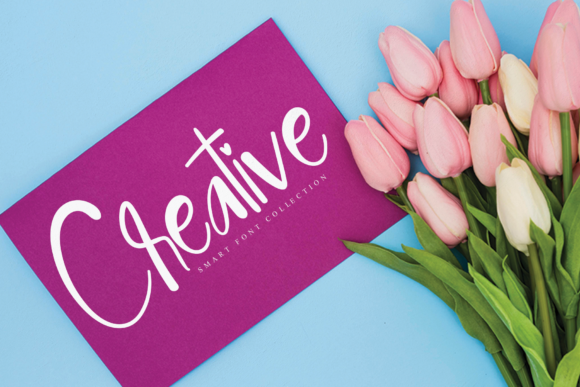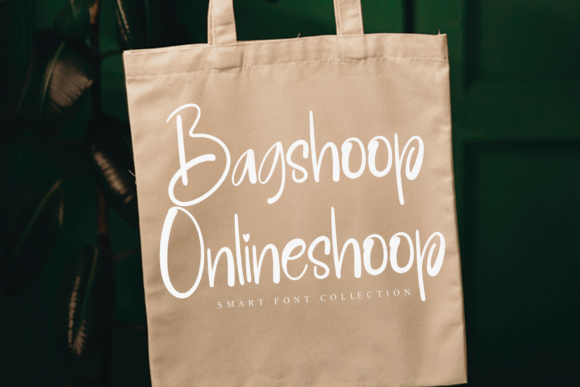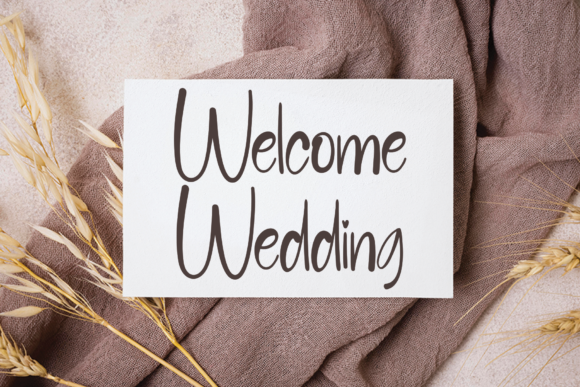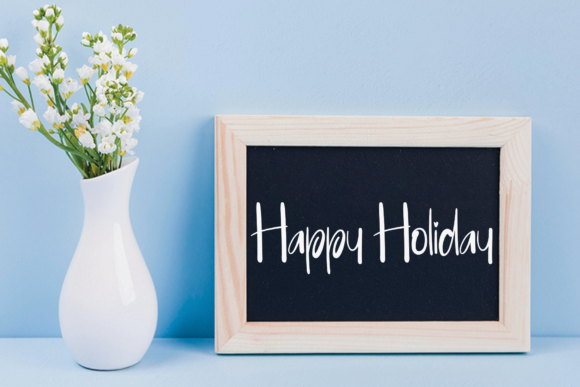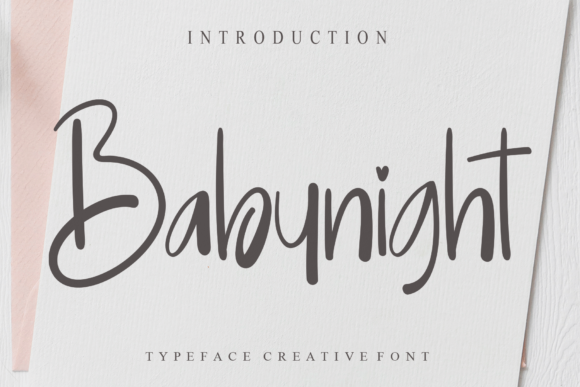
Babynight Font: Elevate Your Designs with Elegant Script
In the world of typography, a well-crafted font can make all the difference in elevating your designs to new heights. For those seeking a touch of sophistication and classic elegance, the Babynight Font is an exceptional choice. This stunning script font, inspired by timeless classic calligraphy, brings a contemporary atmosphere and impeccable form to your projects.
The Essence of Babynight Font
Babynight is not just another script font; it’s a carefully designed typeface that strikes the perfect balance between modernity and tradition. Its elegant strokes and varied letterforms are crafted to add a touch of refinement and luxury to any design. Whether you’re working on a branding project, a wedding invitation, or a packaging design, Babynight Font is sure to make a lasting impression.
Key Features of Babynight Font
- Balanced and Varied: The font boasts a beautiful balance of thin and thick strokes, creating a harmonious visual flow that’s both pleasing to the eye and highly readable.
- Elegant and Contemporary: Babynight Font combines the classic charm of traditional calligraphy with a modern twist, making it versatile for a wide range of design applications.
- Impeccable Form: Each letterform is meticulously designed to ensure clarity and aesthetic appeal, making it perfect for both digital and print projects.
- Easy to Read: Despite its elegant nature, Babynight Font maintains excellent legibility, ensuring your message is conveyed clearly and effectively.
Applications of Babynight Font
The versatility of Babynight Font makes it suitable for a myriad of design projects. Here are some of the most popular applications:
- Branding and Logos: Create a lasting first impression with a logo that exudes elegance and sophistication.
- Wedding and Event Invitations: Add a touch of luxury and romance to your invitations and event materials.
- Packaging Design: Elevate your product packaging with a font that communicates quality and style.
- Digital and Print Media: From social media graphics to brochures and magazines, Babynight Font is perfect for any project requiring a touch of class.
Tips for Using Babynight Font
To maximize the impact of Babynight Font in your designs, consider the following tips:
- Pair with Complementary Fonts: Combine Babynight Font with simpler fonts to create contrast and hierarchy in your design.
- Experiment with Colors: While Babynight Font looks stunning in black, don’t be afraid to experiment with colors that match your brand’s palette or the mood of your project.
- Play with Sizes: Utilize varying font sizes to emphasize certain parts of your text and create visual interest.
Babynight Font is more than just a typeface; it’s a design statement. Its elegant script, contemporary vibe, and impeccable form make it an invaluable asset for designers and crafters aiming to infuse their projects with sophistication and charm. Whether you’re creating a brand identity, designing event materials, or working on digital content, Babynight Font is poised to elevate your designs to new heights of elegance and professionalism.
Incorporating Babynight Font into your design toolkit can significantly enhance the aesthetic quality of your projects. Its timeless elegance, combined with a modern flair, makes it an excellent choice for designers seeking to create visually stunning and impactful designs.